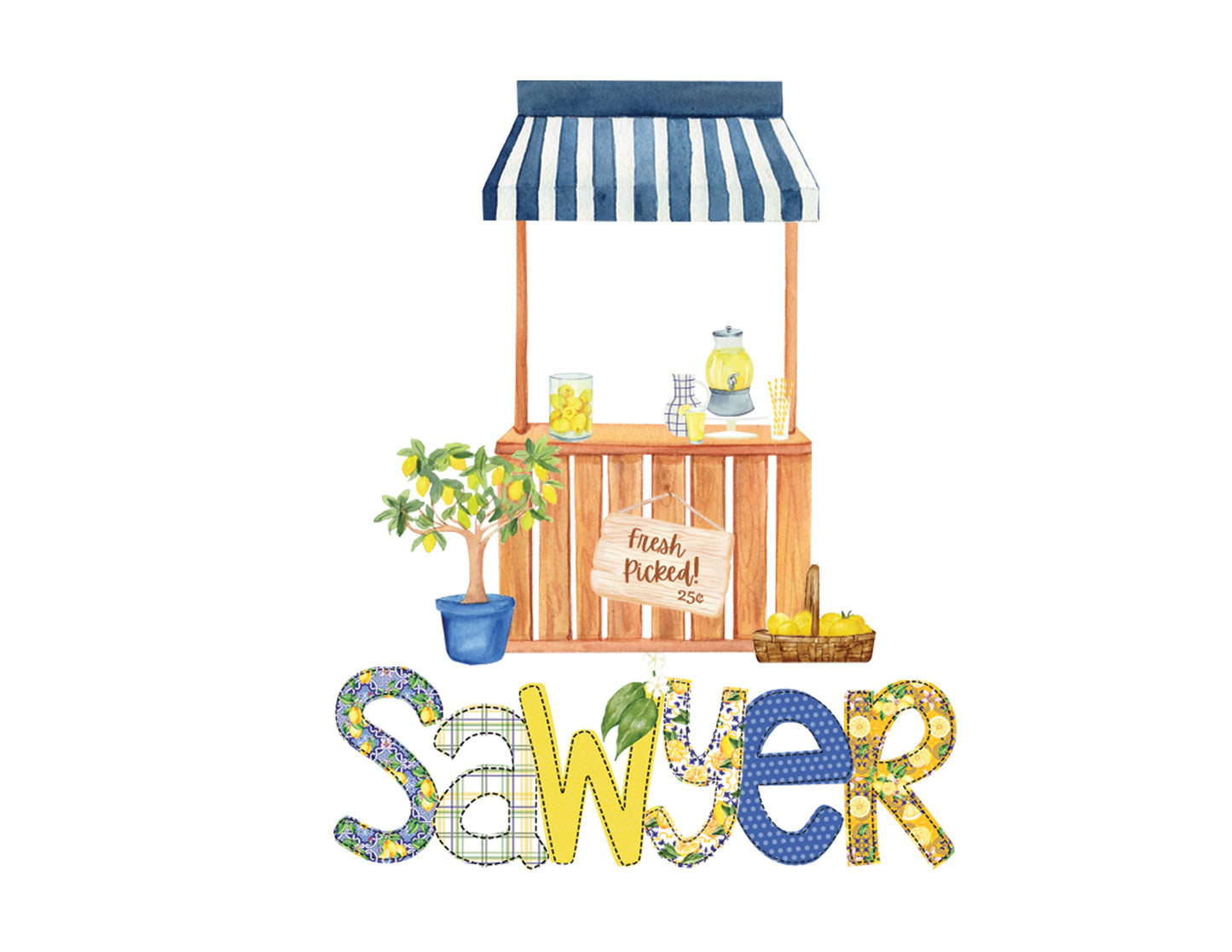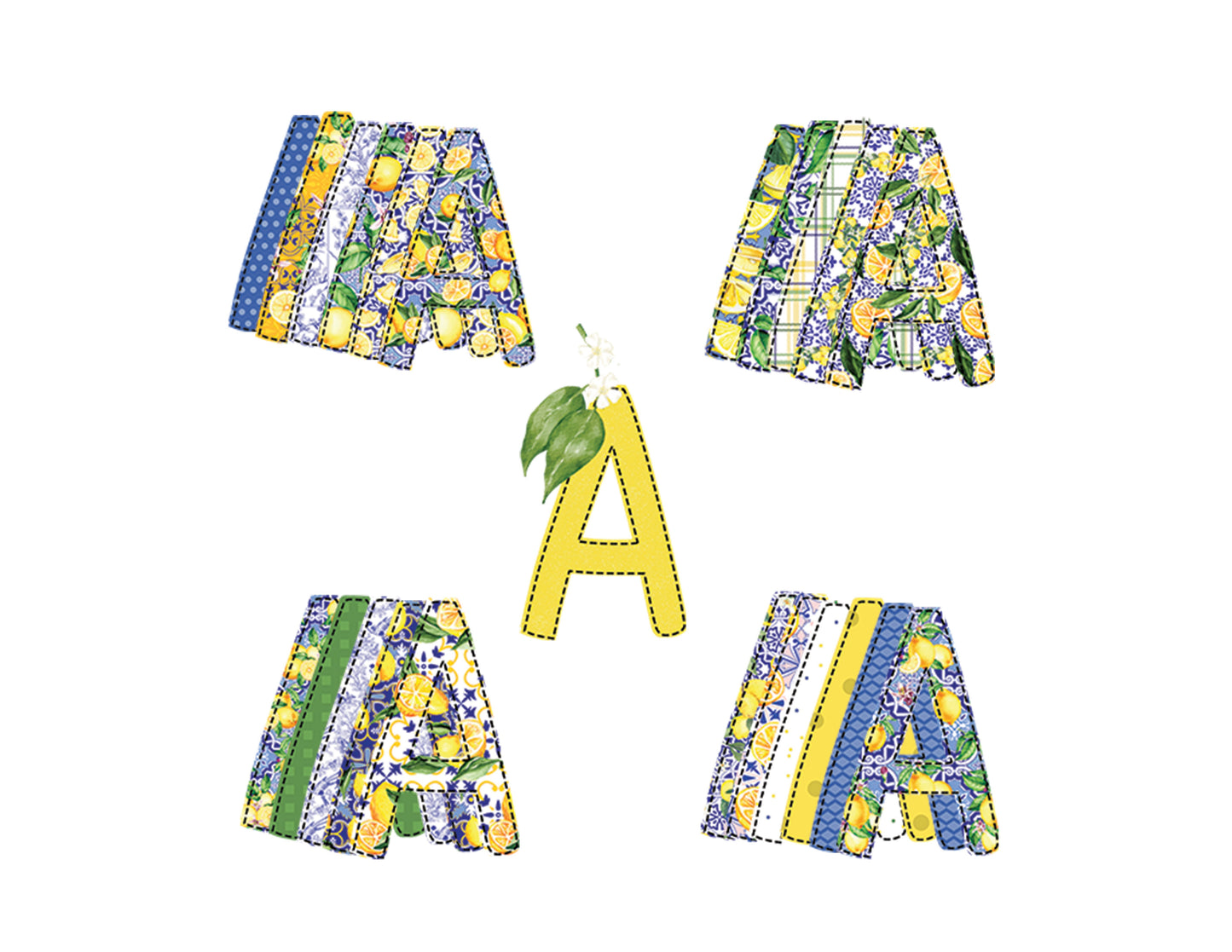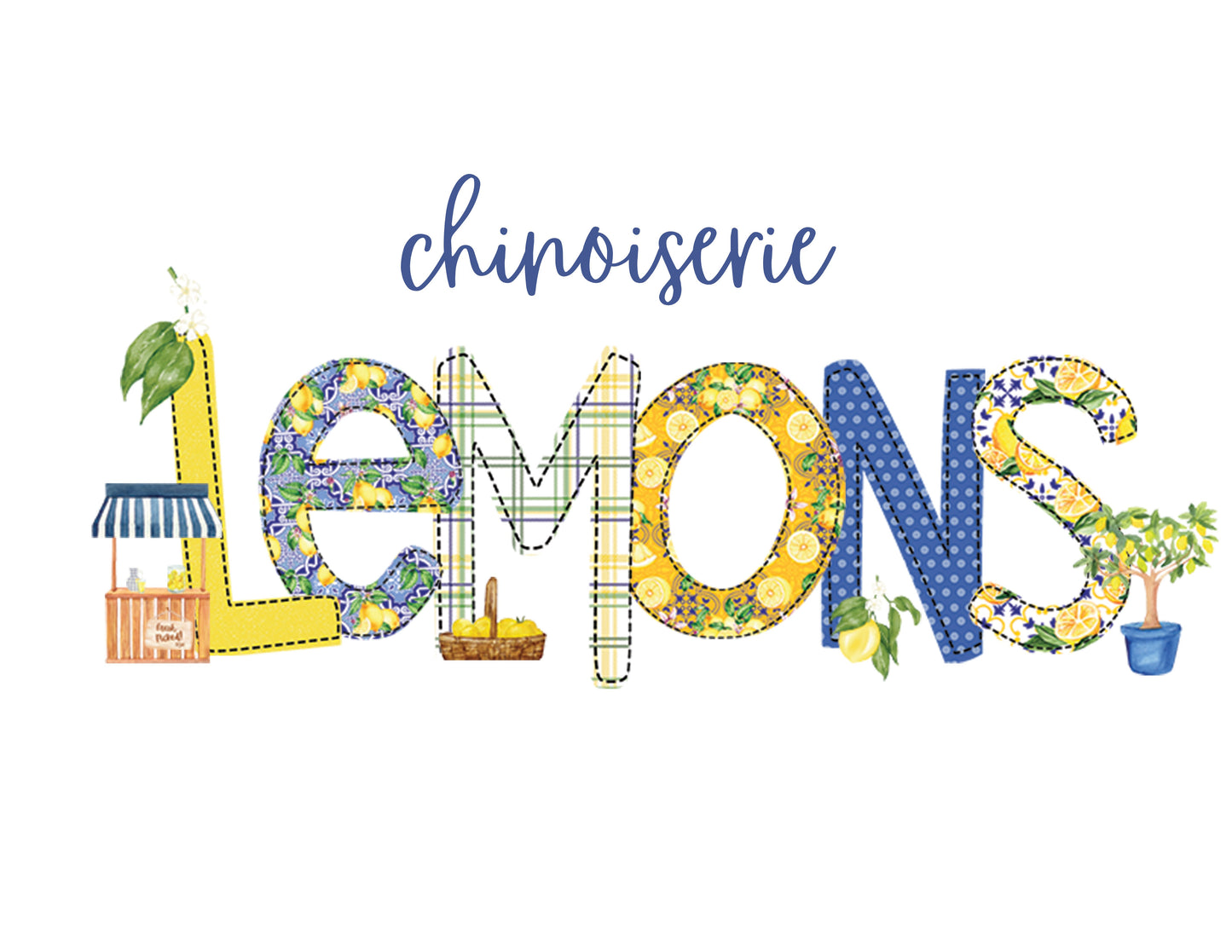
Chinoiserie Lemon Alpha Font
Add the perfect spring touch to your next project with our chinoiserie lemon font! Yellow and blue pair beautifully for a happy spring/summer look. This digital alpha pack includes 21 full patter fonts along with all the elements needed to add that perfect detail.